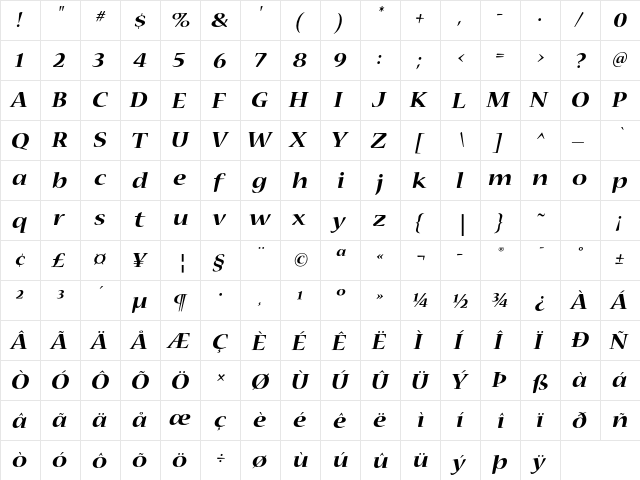
Nueva Std Bold Extended Italic
| Designer | Carol Twombly |
Nueva Std takes a measured approach to typography — its balanced proportions and neutral character make it a reliable workhorse for both digital and print work. The dynamic lean of this cut emphasises speed and emphasis in any layout. The heavy weight commands attention and anchors typographic hierarchies.
Pro Tip: Use Nueva Std for emphasis, pull quotes, and subheadings where its slanted energy can add rhythm to the layout.